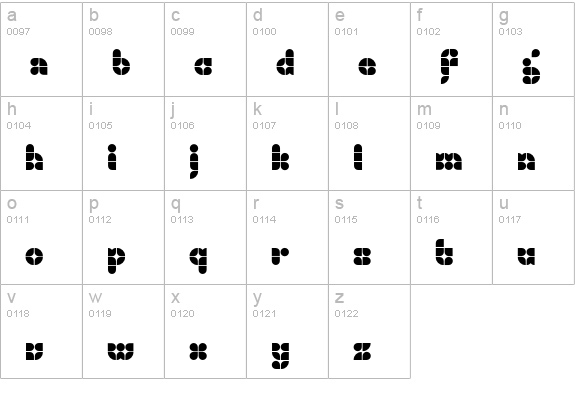
Stadia Font Details
Introducing Stadia, a stunning and versatile font that will take your designs to new heights. With its modern, sleek, and stylish aesthetic, Stadia is the perfect choice for a wide range of projects, from branding and advertising to packaging and editorial design. But what sets Stadia apart from other fonts? It's the fact that it's not only visually pleasing but also free! Yes, you read that right. Stadia is freely available to download at FontsMarket.com, making it accessible to designers, creatives, and enthusiasts alike. The elegance and sophistication of Stadia are evident in its clean lines and well-balanced letterforms. Each character is meticulously crafted to ensure readability and legibility in any size or context. Whether used for headings, body text, or even large-scale displays, Stadia effortlessly captures attention and leaves a lasting impression. One of the standout features of Stadia is its extensive glyph set. This font encompasses a wide range of diacritics, ligatures, and alternate characters, allowing you to unleash your creativity and add a unique touch to your designs. The possibilities are truly endless with Stadia. Furthermore, Stadia boasts exceptional versatility. Its timeless design transcends trends, making it suitable for any project, whether you're designing a modern tech startup logo or a classic, elegant wedding invitation. Stadia adapts effortlessly to any style or concept, ensuring that your message is conveyed with utmost clarity and impact. Downloading Stadia from FontsMarket.com is a breeze, ensuring a seamless experience for designers seeking a top-quality, free font. So why wait? Elevate your designs, captivate your audience, and make a lasting impression with Stadia. Download it now and let your creativity soar!